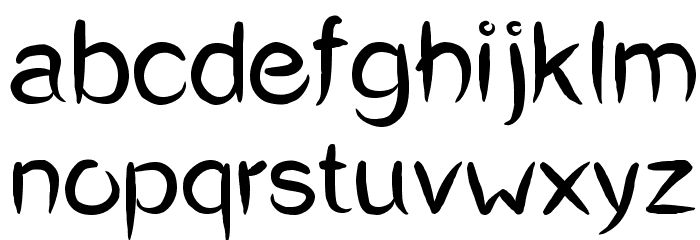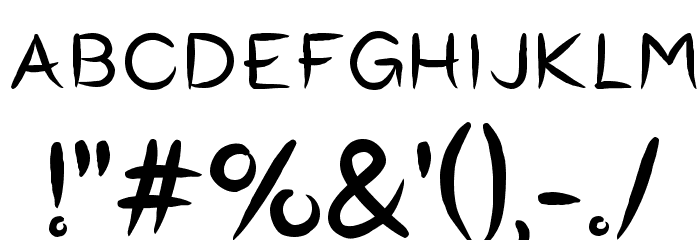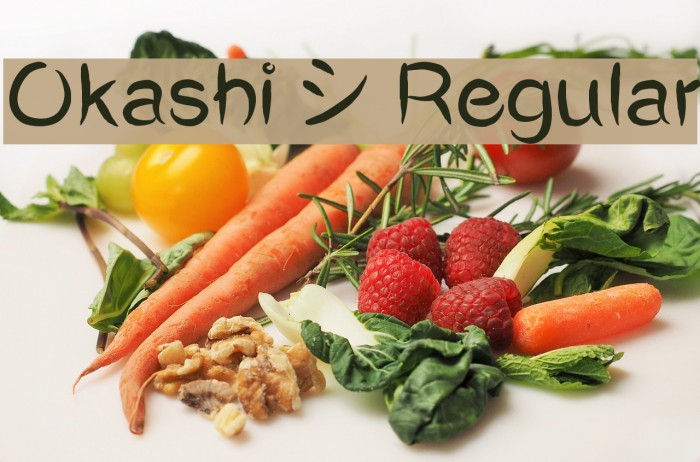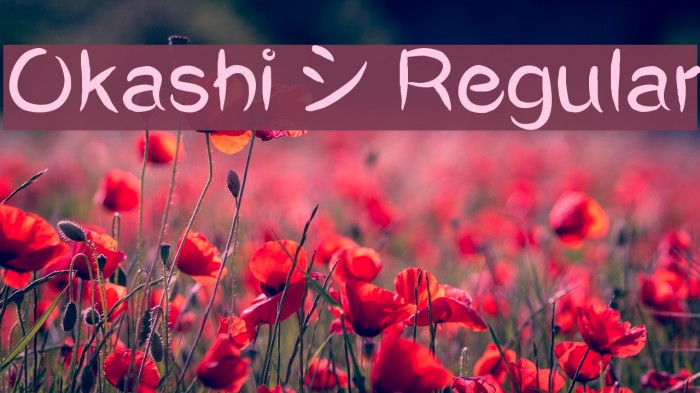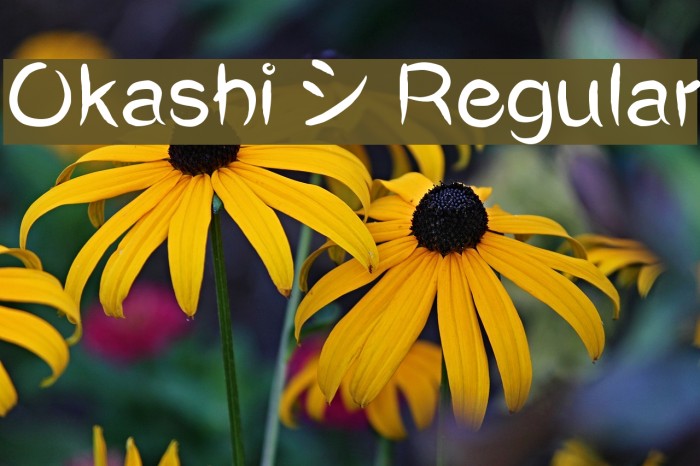
Okashi^ Regular Font
This font features a playful and whimsical design with a handwritten style. The characters have a slightly irregular and organic appearance, giving them a lively and dynamic feel. The strokes vary in thickness, adding a touch of spontaneity and charm. The uppercase and lowercase letters maintain a consistent style, with rounded edges and a casual flow. The numerals and special characters complement the overall aesthetic, making it suitable for creative and informal projects.
A playful, handwritten font with a whimsical and dynamic style.
- Proposed Projects: Ideal for children's books, greeting cards, playful branding, and creative posters.
- Overall Style: Playful
- Use Case: Headlines, Logos, Creative projects